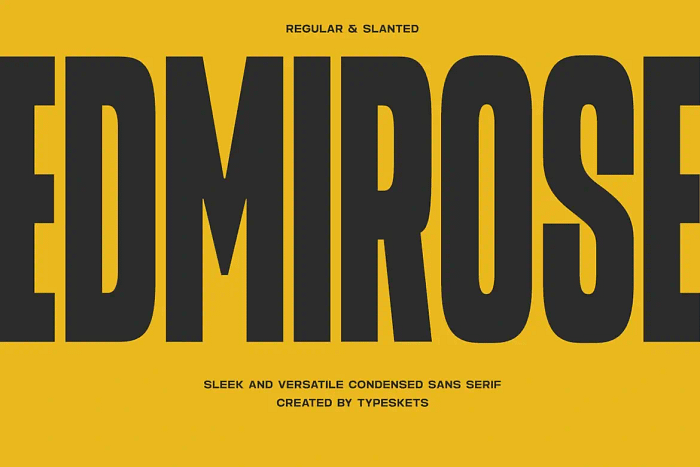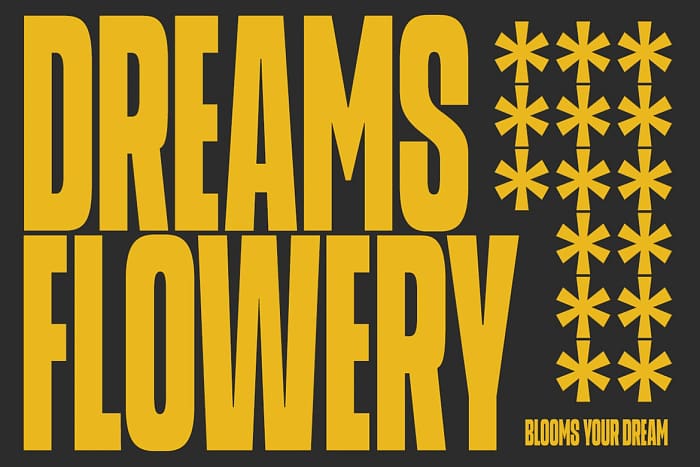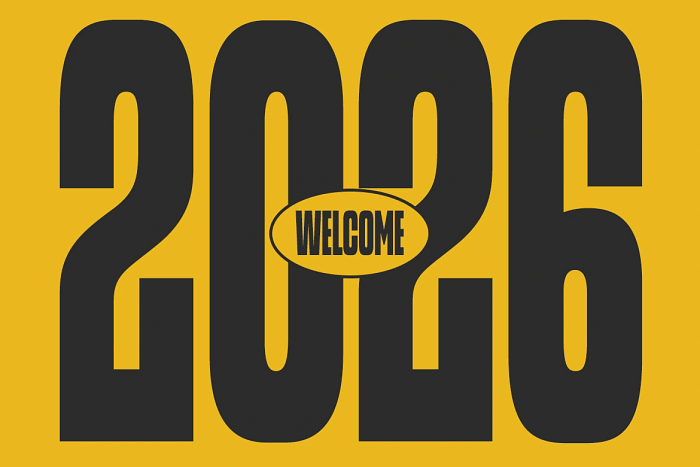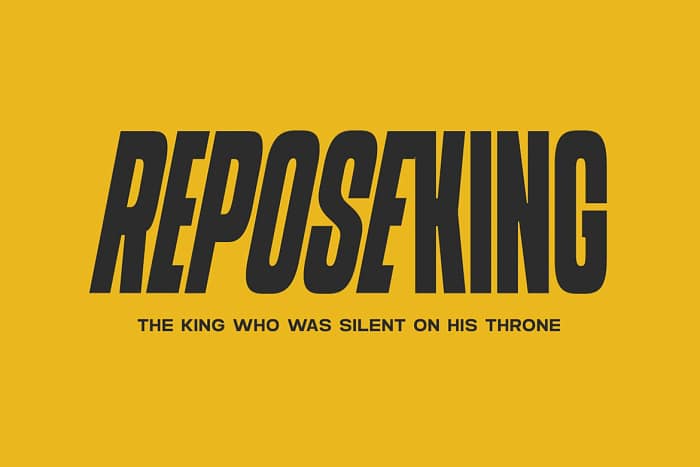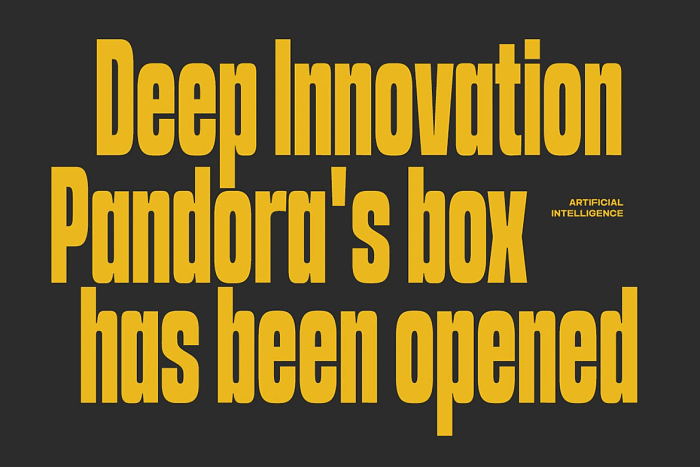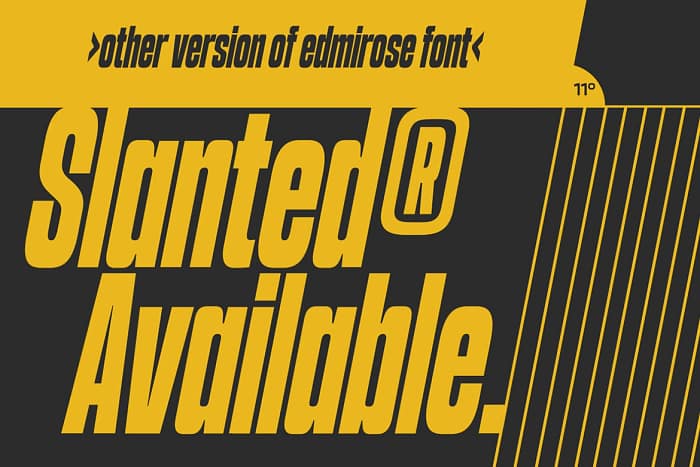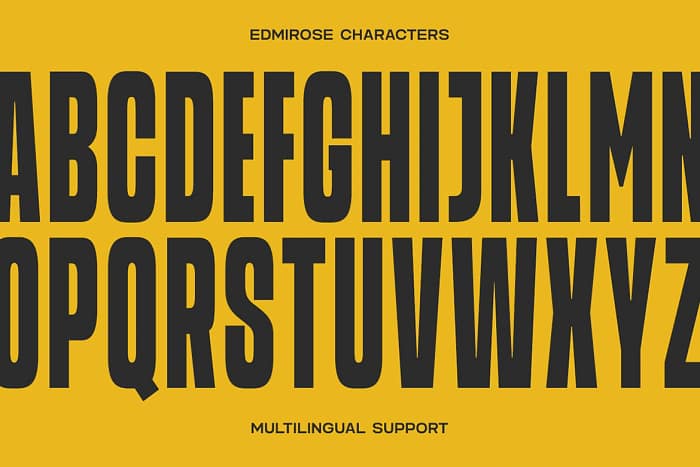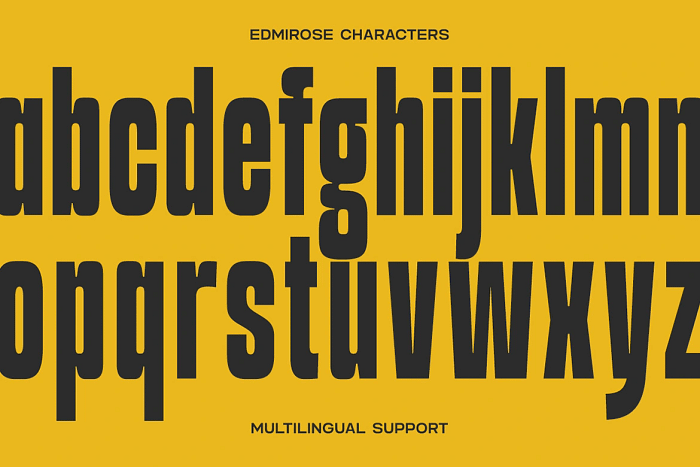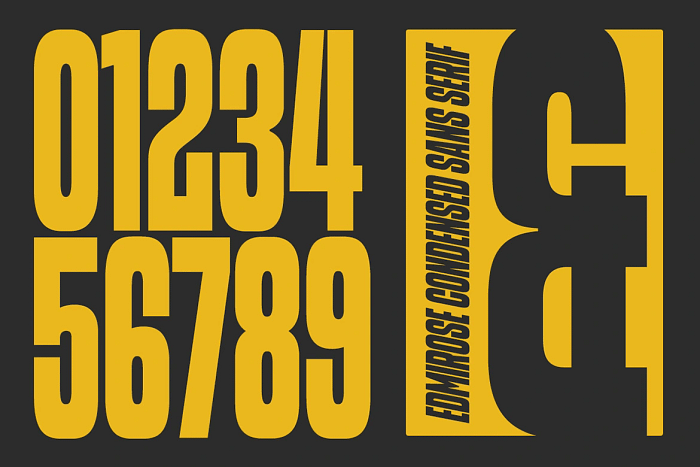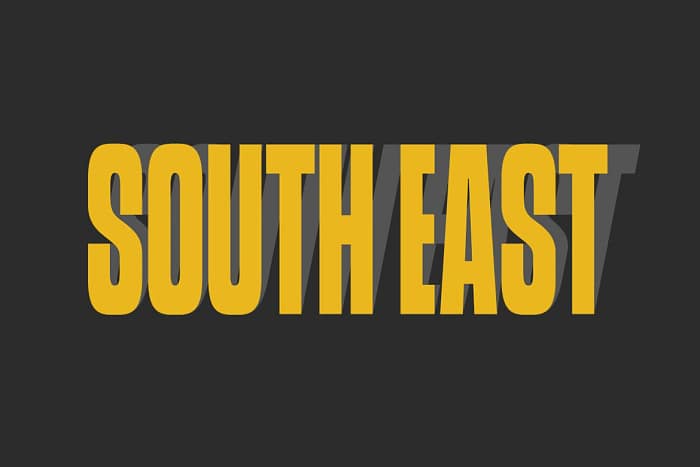
Edmirose is a sleek and versatile condensed sans-serif font, available in two styles: Regular and Slanted. Designed to provide a bold and modern look, this font is perfect for various design needs such as branding, posters, headlines, packaging, and more. With its strong character and well-balanced proportions, Edmirose brings a professional yet stylish touch to any design project.
- Available in Regular & Slanted styles
- Uppercase & Lowercase letters
- Multilingual Support